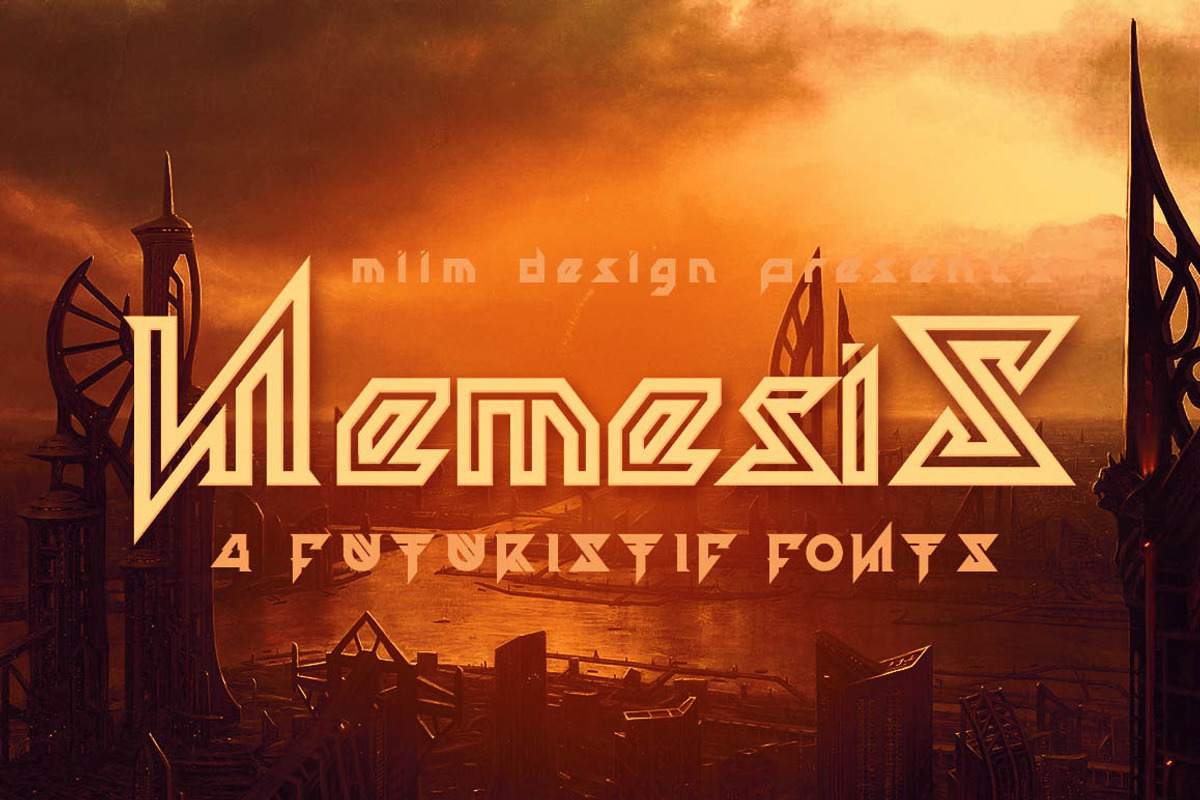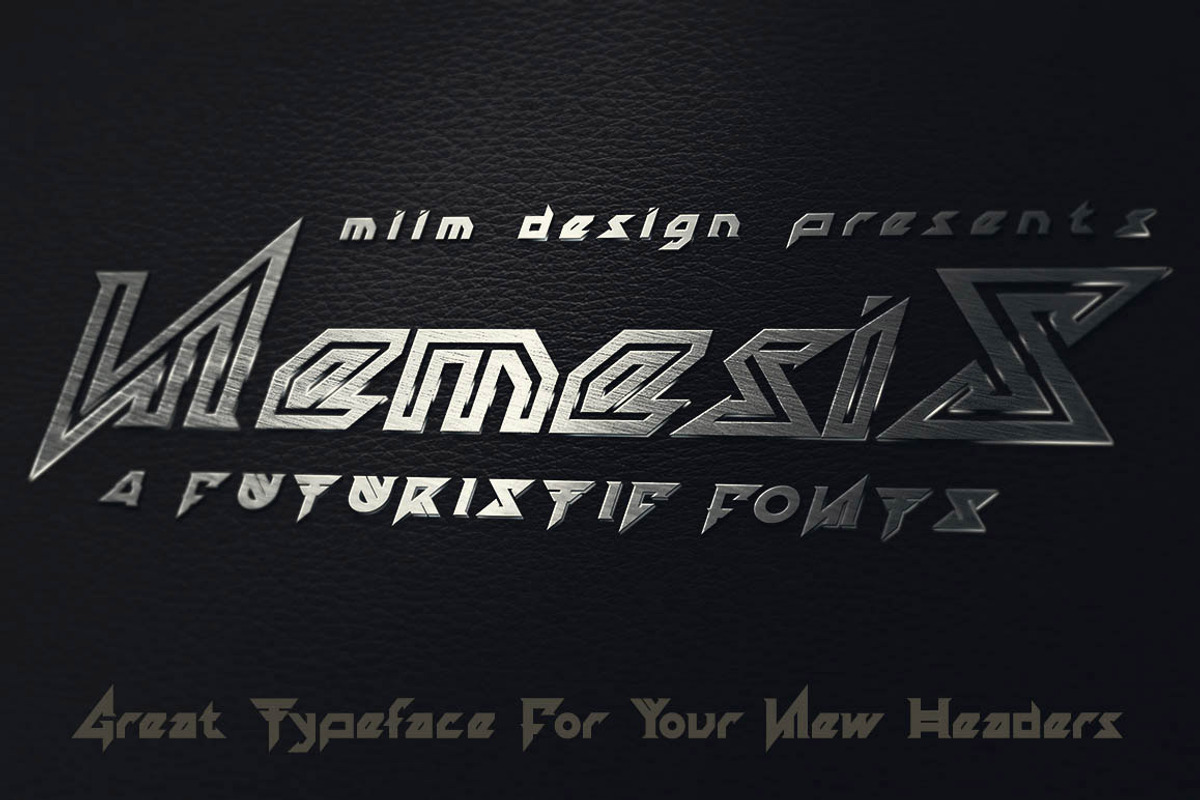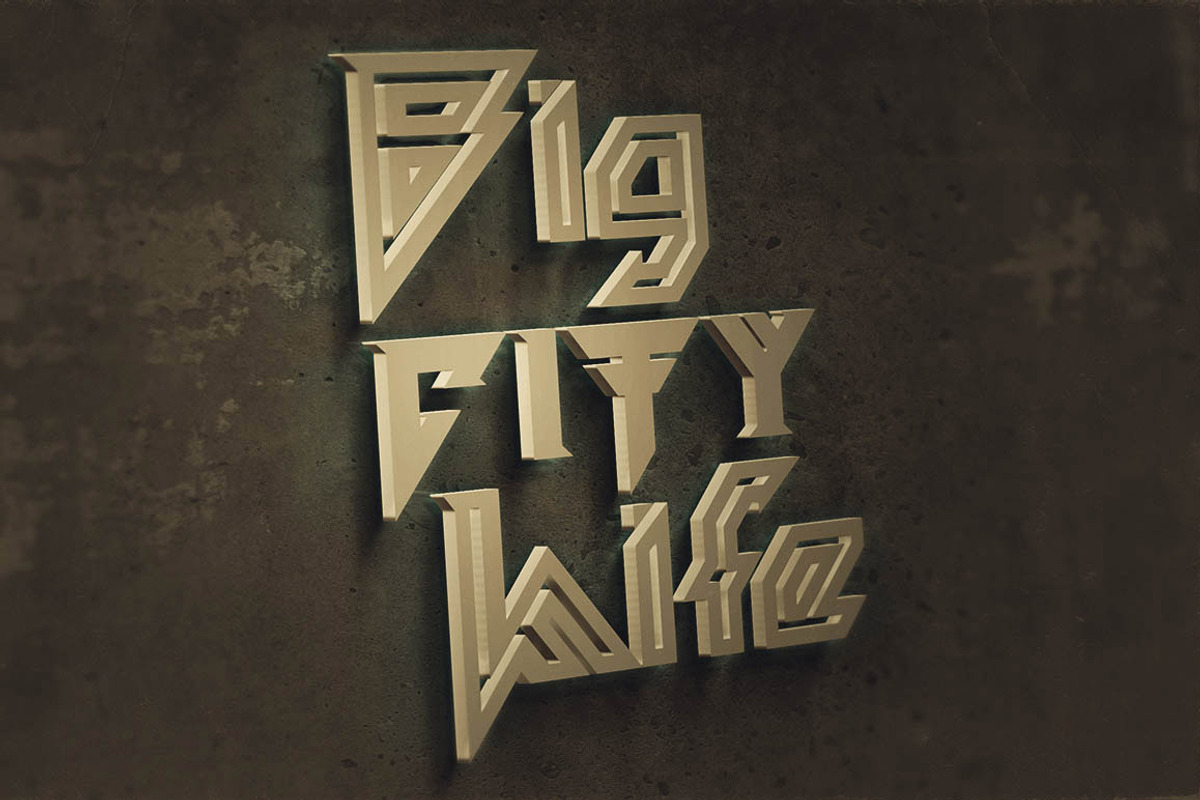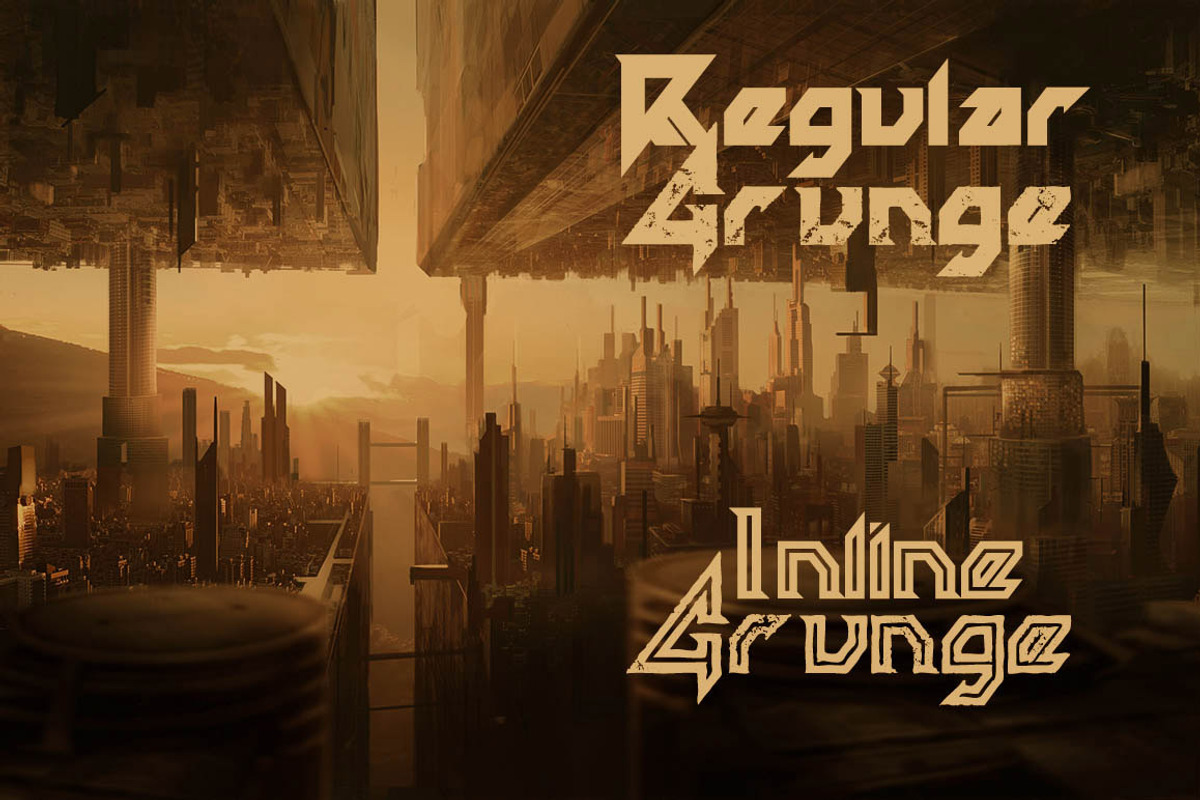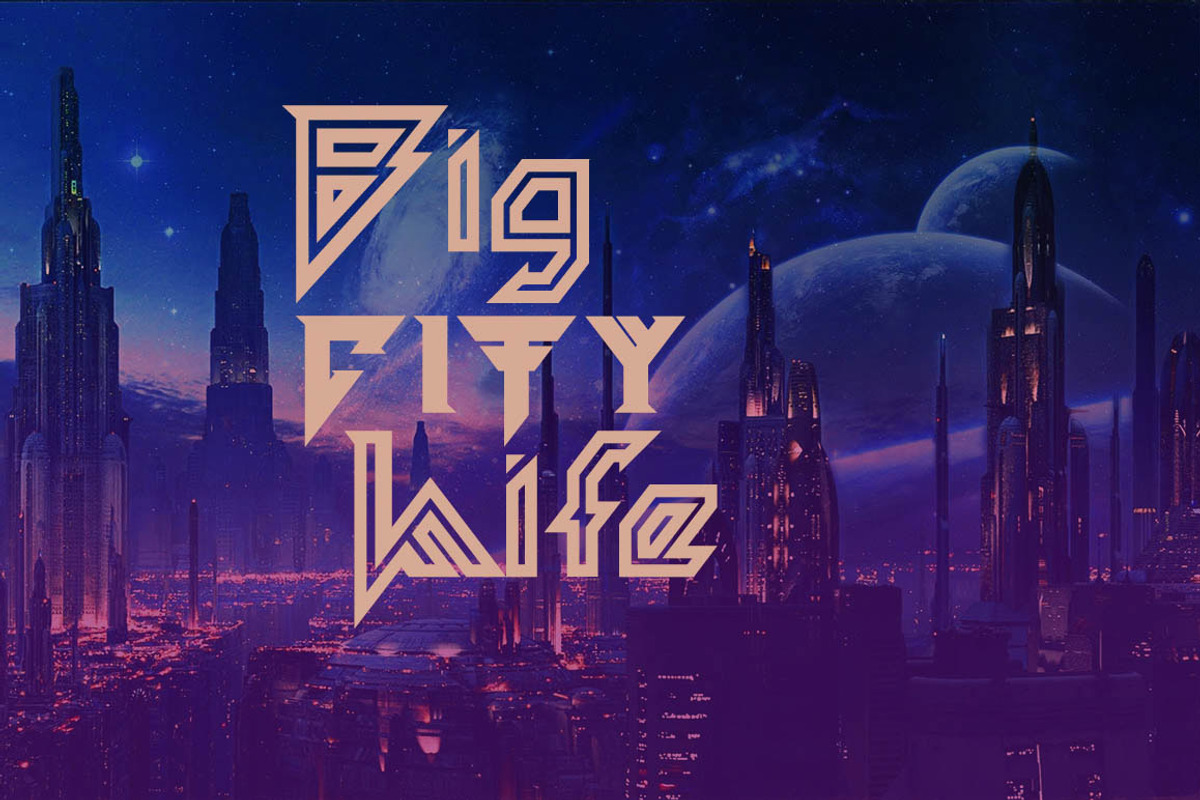
Nemesis - Futuristic Font
Nemesis - Futuristic Font by MIIM is a font selected for branding, posters, packaging, typography.
Why Nemesis - Futuristic Font is worth a look
Nemesis - Futuristic Font by MIIM fits naturally into Branding, posters, packaging, typography.